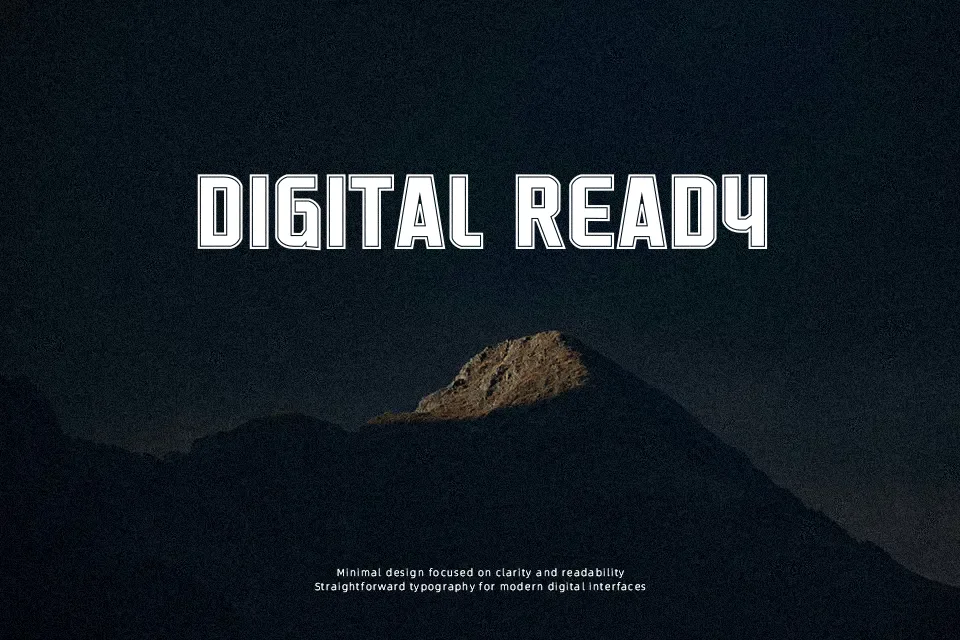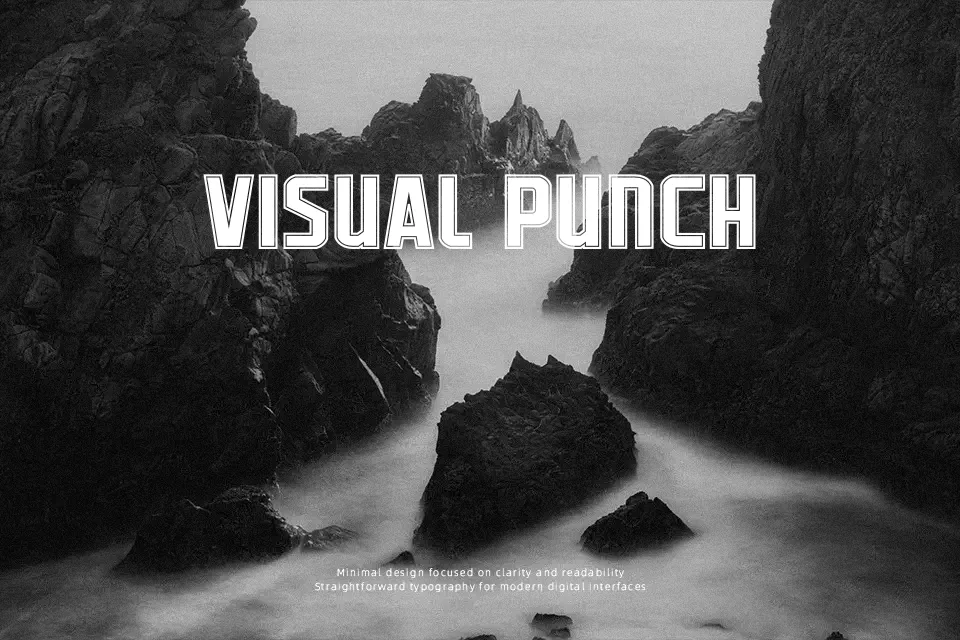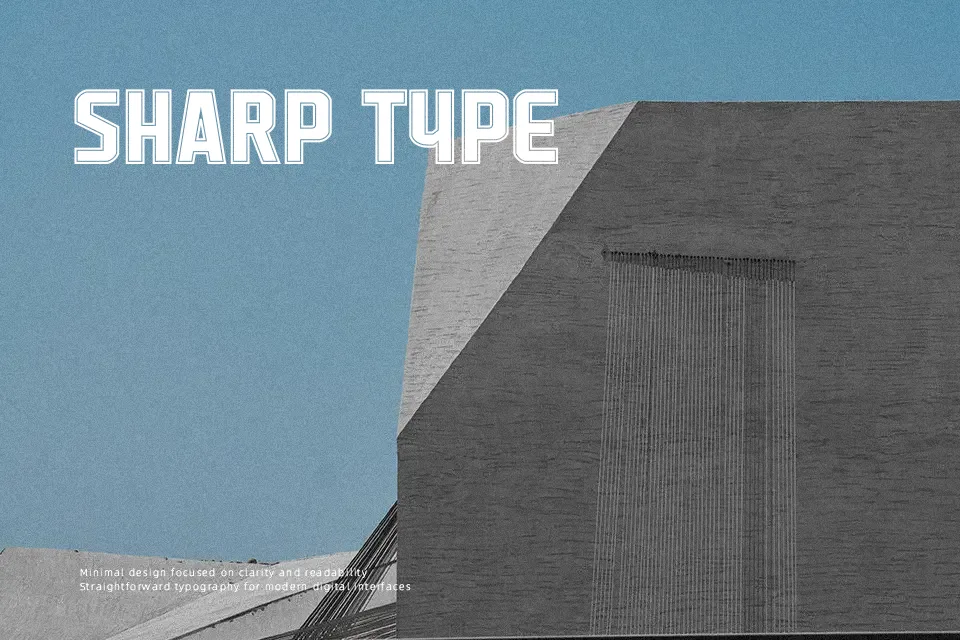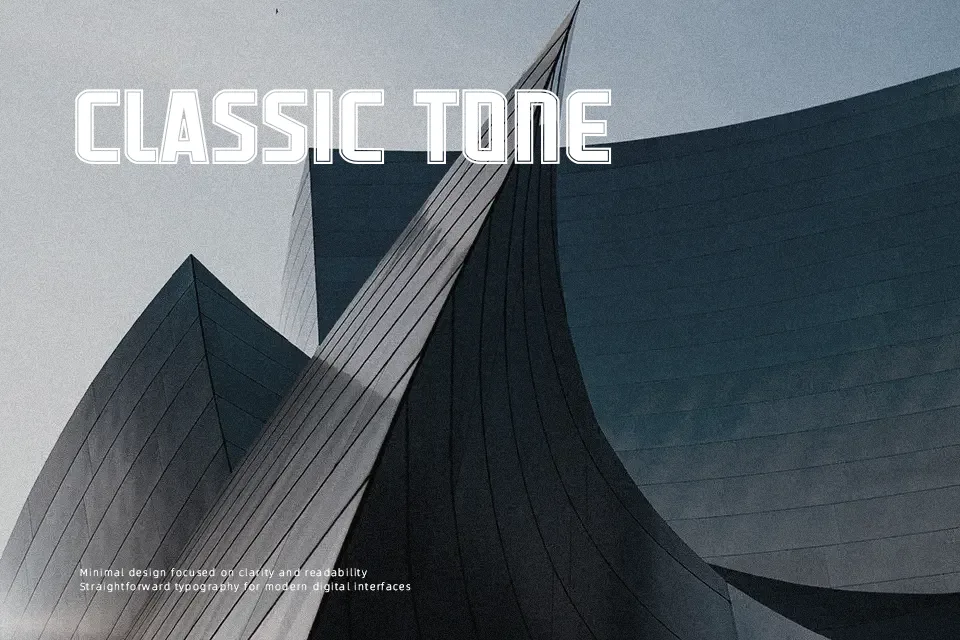
Trequartista Font
Trequartista Font functions most effectively in oversized headline applications where heavy stroke weights and disciplined geometric contours dominate the visual hierarchy. The letterforms exhibit uniform thickness, flat horizontal baselines, and clipped diagonal corners that establish an authoritative athletic appearance. Tight character spacing reinforces this compact silhouette, allowing words to lock together cleanly across banner designs and competition flyers. However, the condensed interior counters and pronounced stroke mass create significant crowding when scaled down to smaller dimensions. Dense forms reduce comfort during extended reading, making the design ill-suited for body text or detailed captions. For prominent event titles, the typeface delivers dependable clarity.
Best For: athletic apparel graphics, sports tournament posters, stadium headline banners
Not Ideal For: continuous body text, dense mobile interface labels, multi-page document layouts
Perfect for headline, logo, and packaging, with a bold and decorative style.